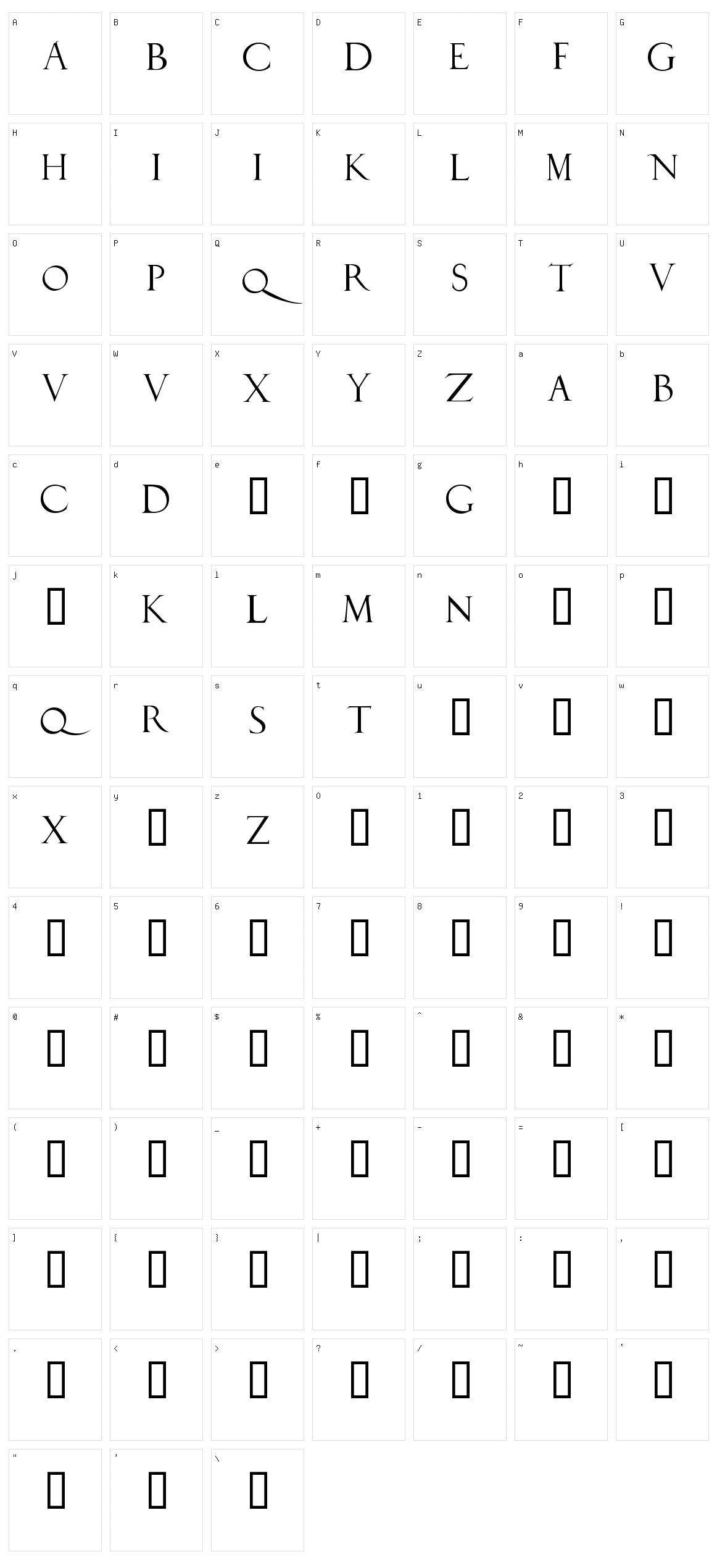
ABOUT DUERER LATIN CAPITALS...
Albrecht Drer (Germany, 1471-1528) drew these schematics to guide the novice in drawing letters because he was such a type snob and felt that type was going to hell already.
Wonder what he would think today with all the Helvetica derivatives (Photoshop + Helvetica = EVIL!)...
Duerer Latin Capitals includes the letters; Duerer Latin Construction Capitals are the diagrams to draw them. Each includes the upper case (minus J and V) plus a few alternate characters. There are no numerals or punctuation. Note: They don't allign when typed one over the other.